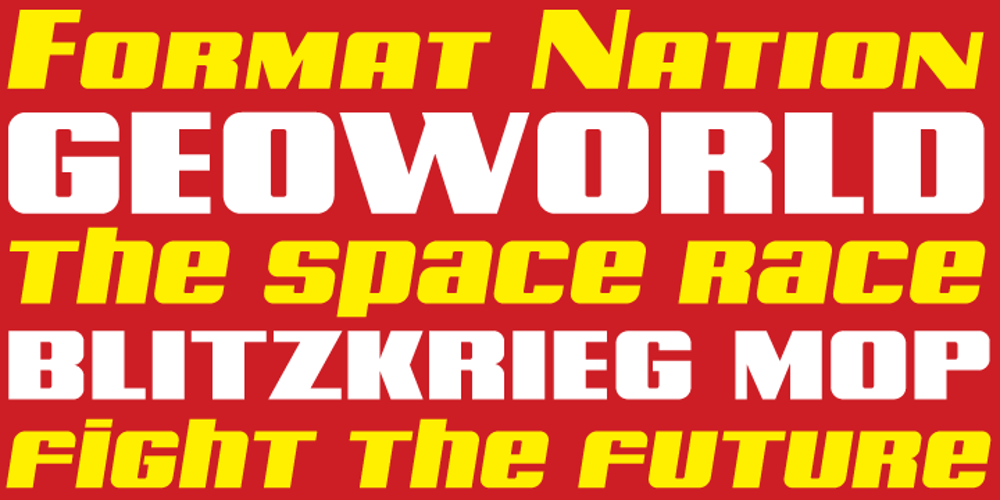
Archie Font Family was designed by Hans van Maanen, Martin Meijer and published by Canada Type. Archie contains 2 styles and family package options. Archie is a wide attention-grabber based on a simple geometric alphabet drawn in the early 1930s by Dutch calligrapher and lettering artist Martin Meijer. This digital family expands considerably on the original letters, adding biform shapes, small caps, italics across the board, and support for many Latin-based languages. Archie’s eye-catching forms are meant for clear, seamless and strong message delivery. In its upright styles, strong vertical strokes emphasize the sense of confidence and importance, and in its italics, that emphasis is further affirmed by a natural sense of urgency. This kind of alphabet is perfect for display typography aiming at the glance-and-go crowd. When used properly and placed prominently, no eye can escape it. The basic Archie family is comprised of six basic fonts, while the Pro set combines all three uprights in one font and all three italics in another.